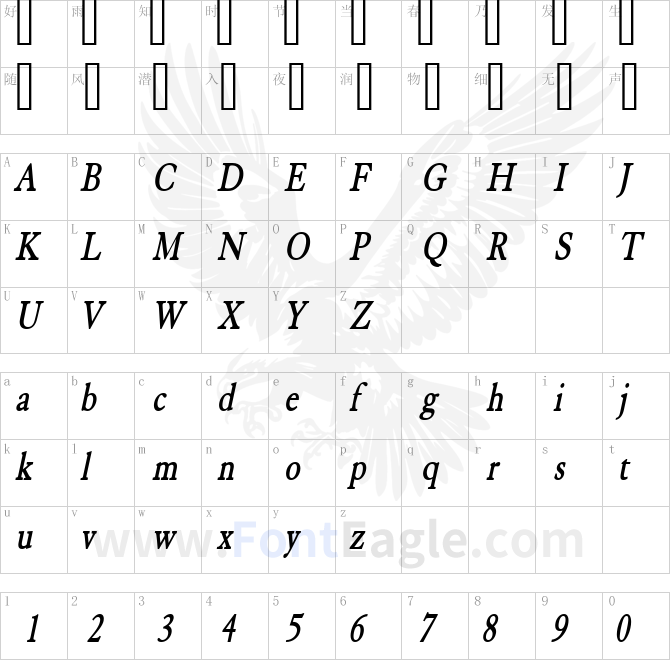
- Font name:Elephant Condensed
- Font Subfamily ID:Altsys Fontographer 4.1 Elephant Condensed BoldItalic
- Font Full Name:Elephant Condensed BoldItalic
- Postscript:ElephantCondensedBoldItalic